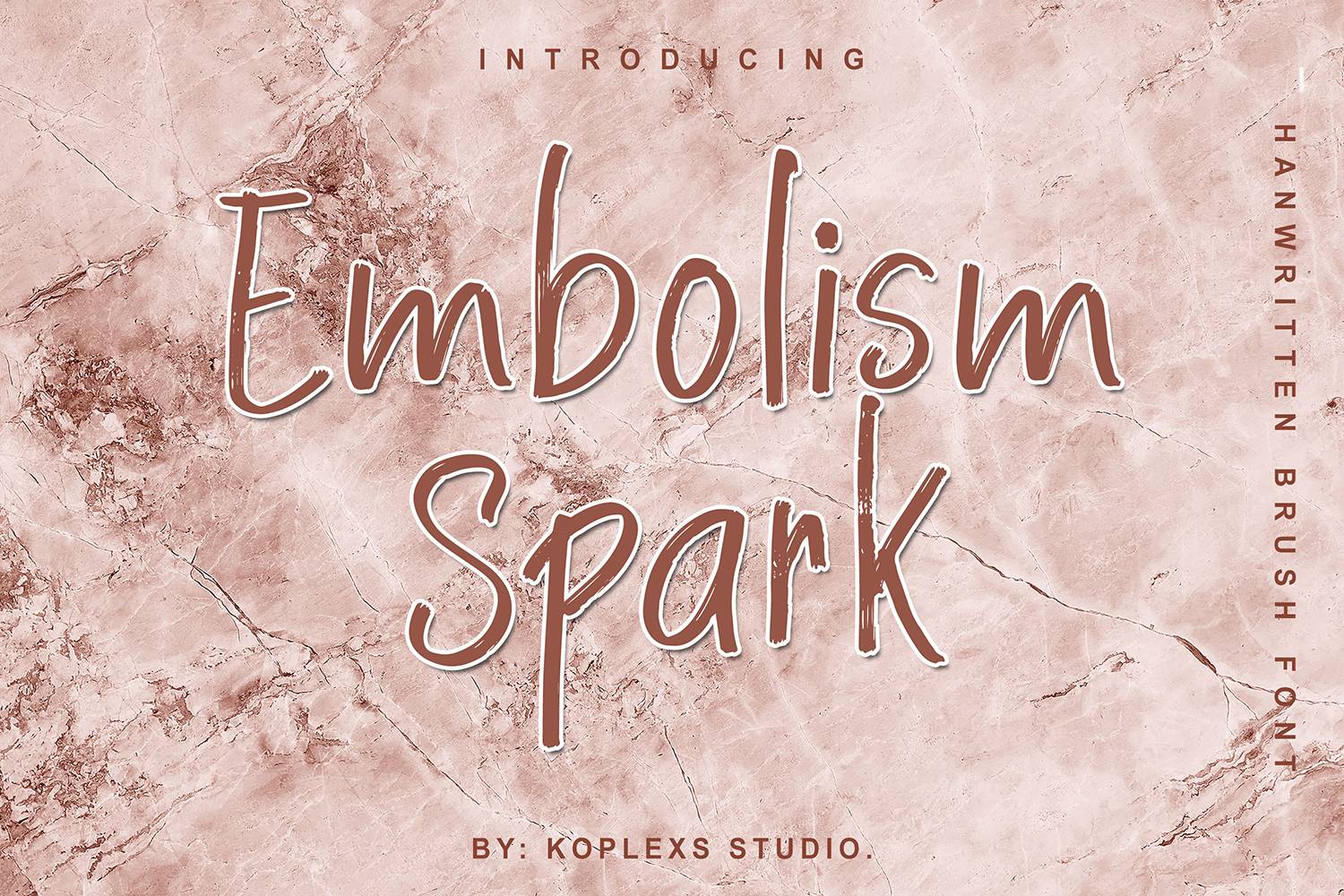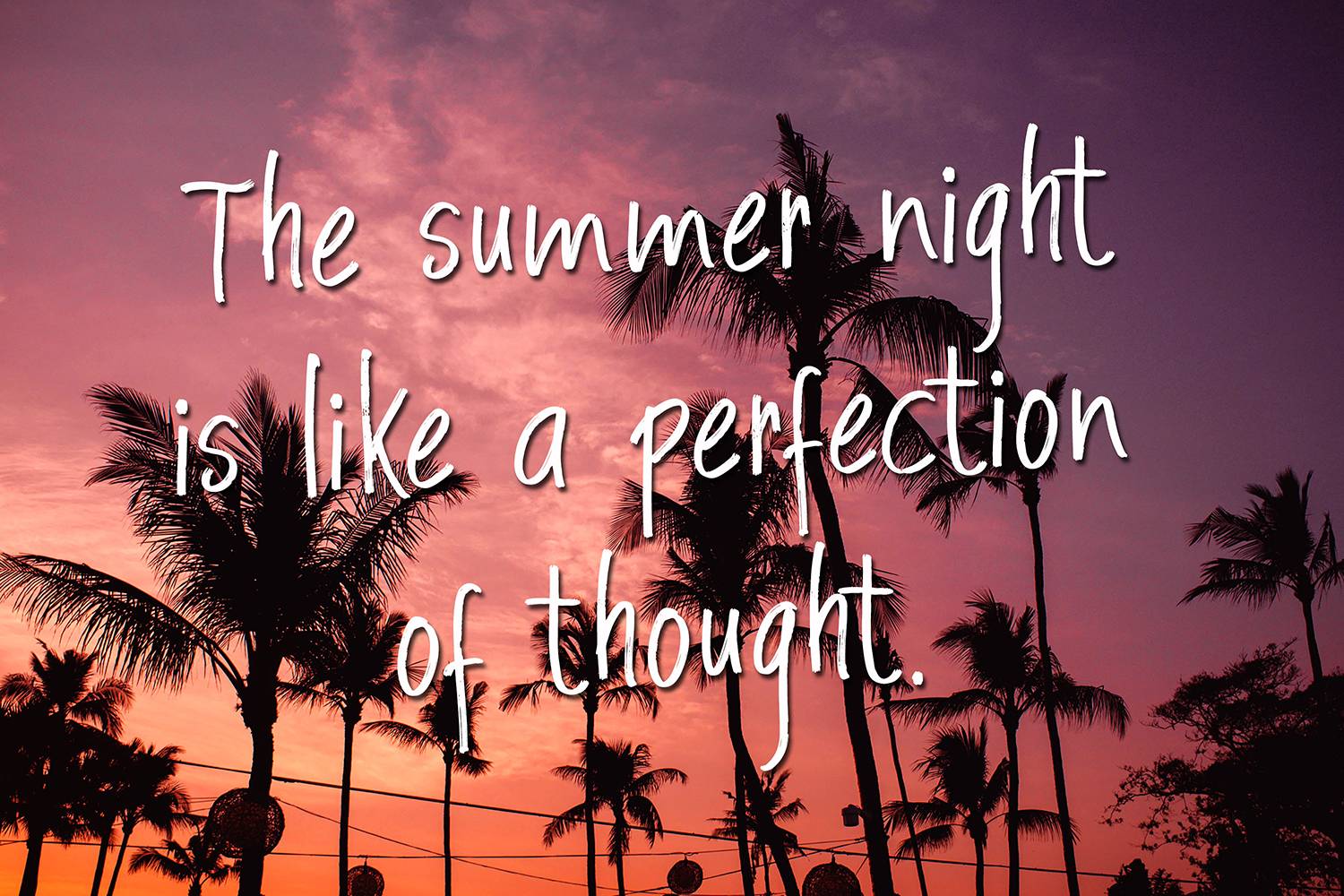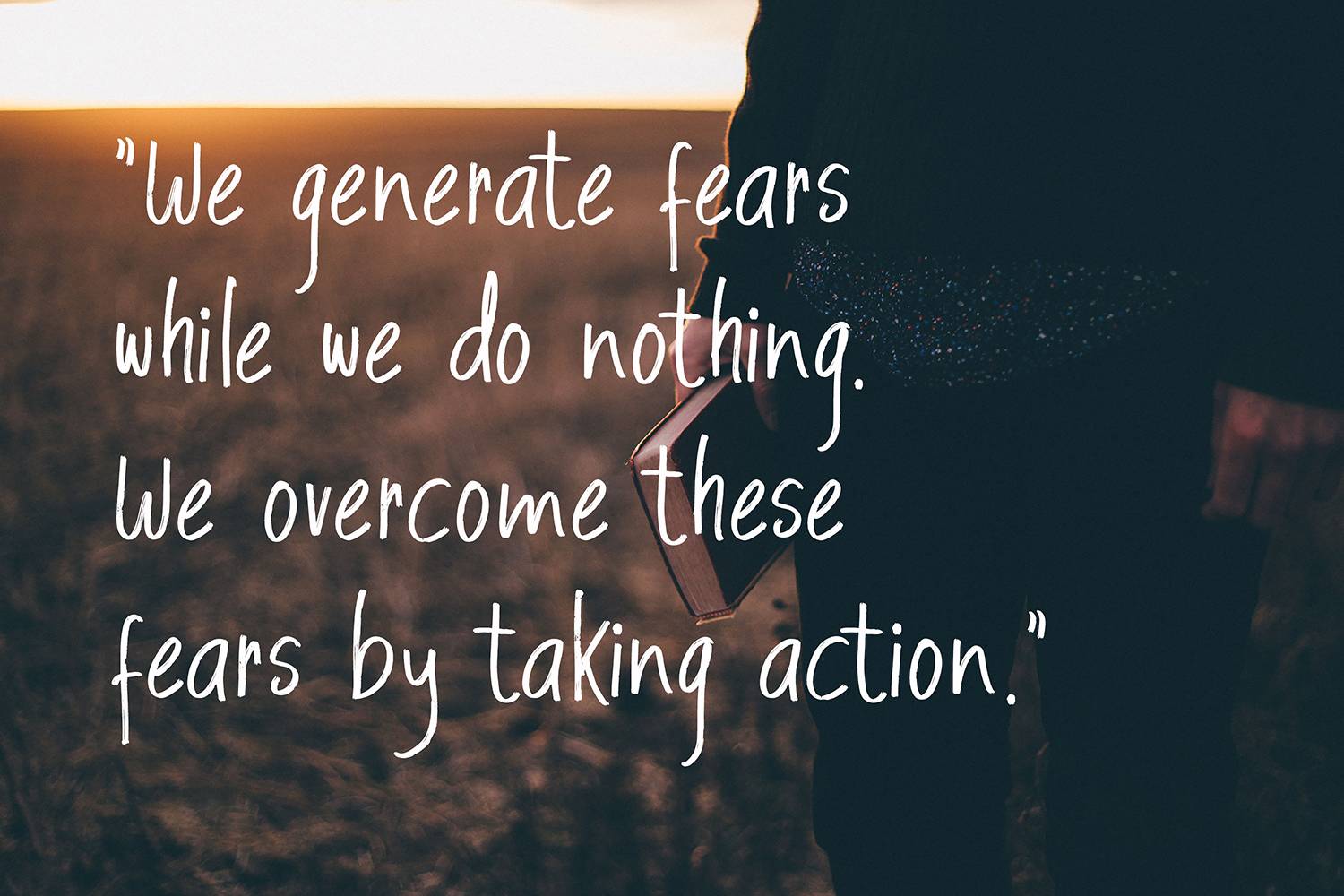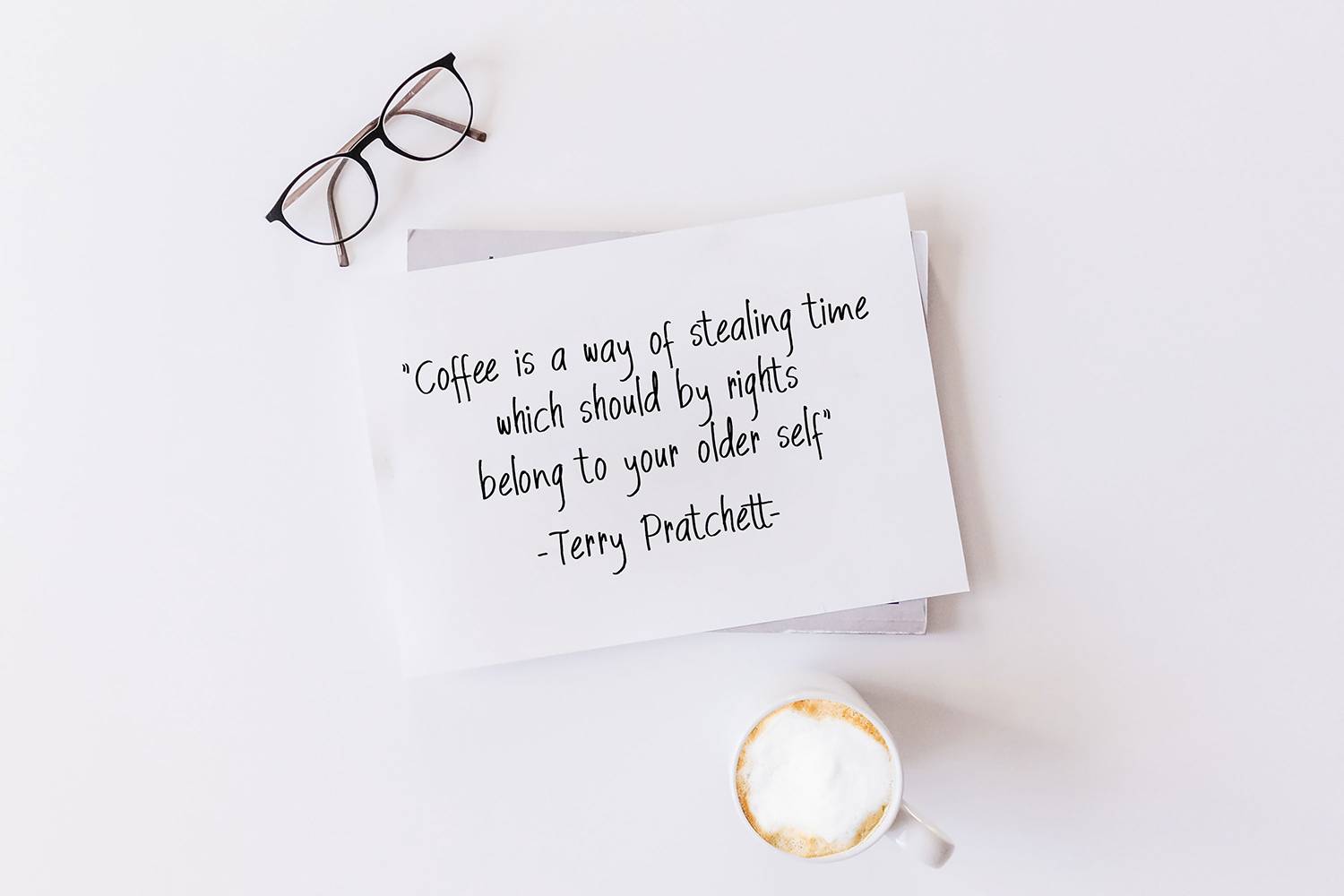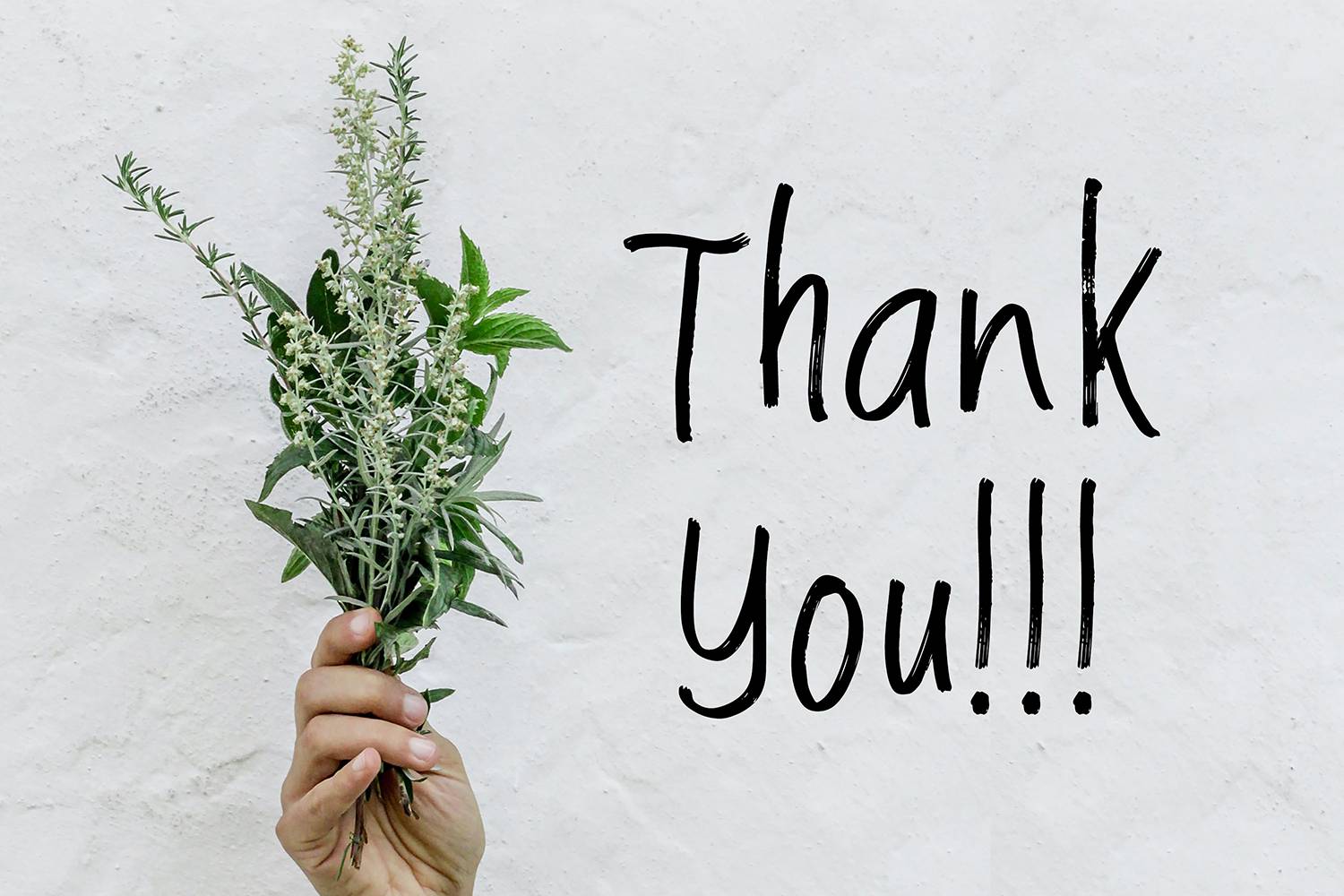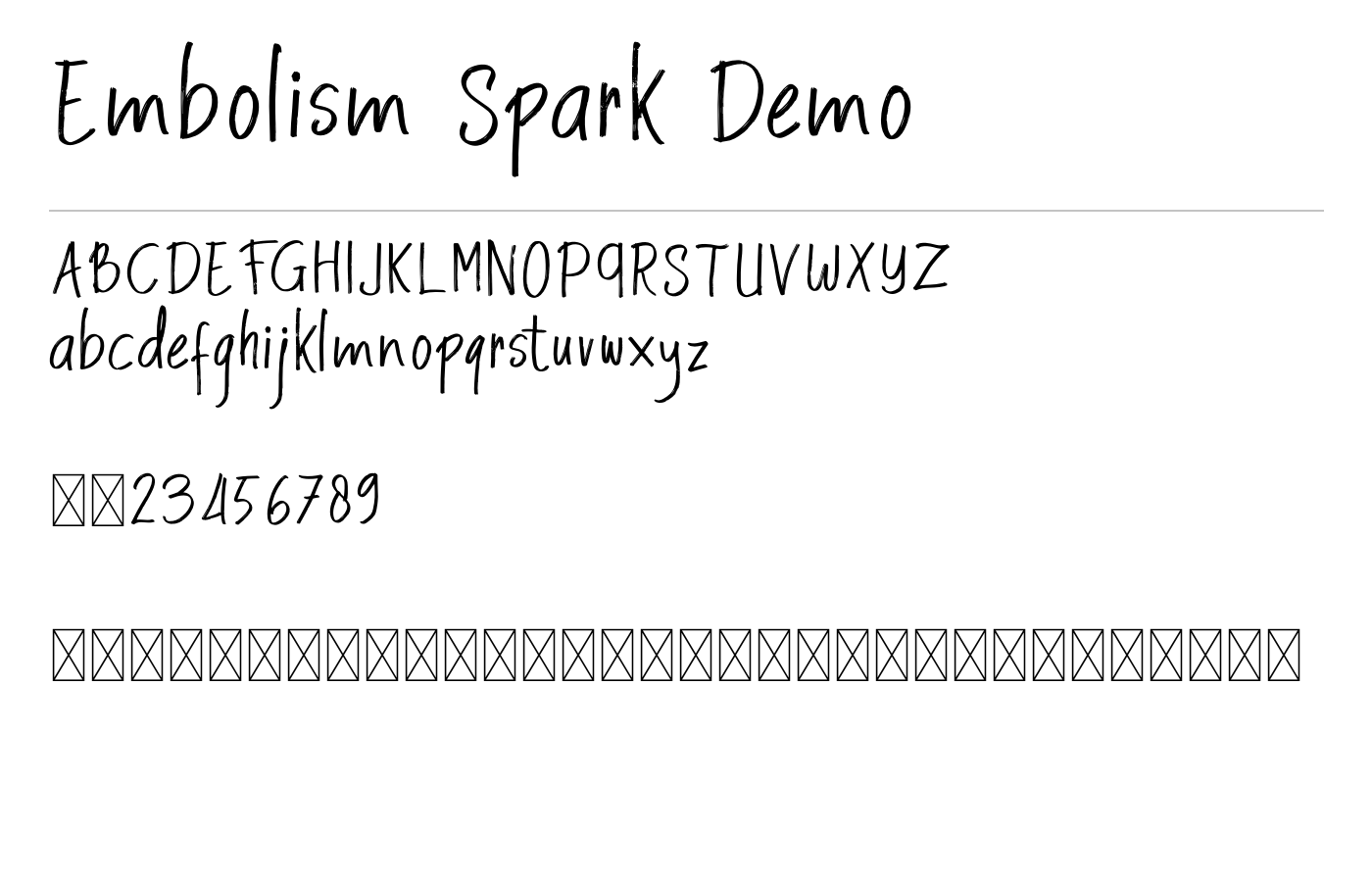
Embolism Spark is a playful and casual handwritten font with a light weight and tall, narrow letterforms that give it an energetic and personal touch. Its slightly uneven strokes and informal style make it perfect for creative projects, children's books, or brands seeking a friendly and approachable vibe. This font works best in headlines, logos, and artistic designs where a warm, human feel is desired.
Embolism Spark Font
About Embolism Spark Font
| Font family | Embolism Spark Font |
| Designer | Ahmad Muslimin |